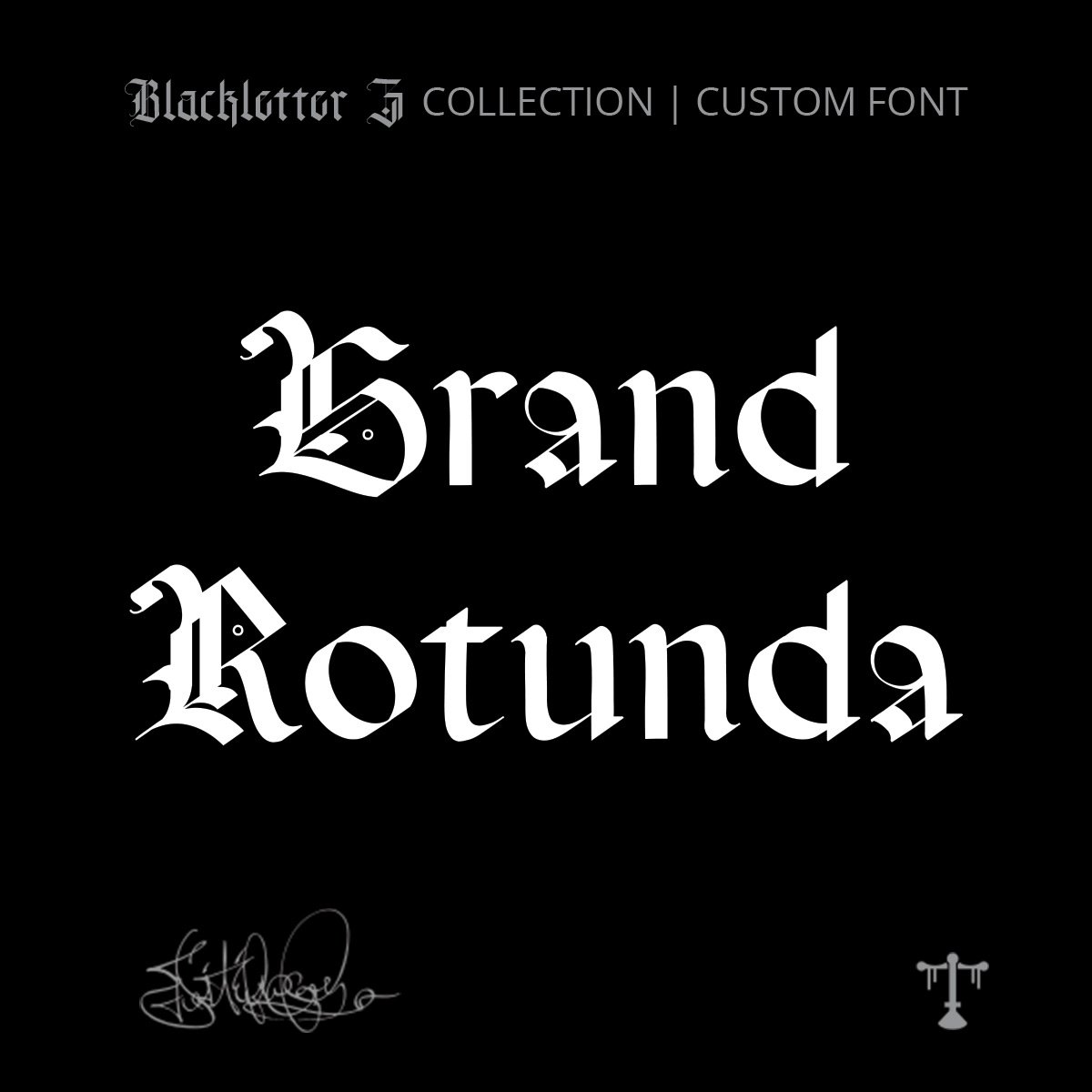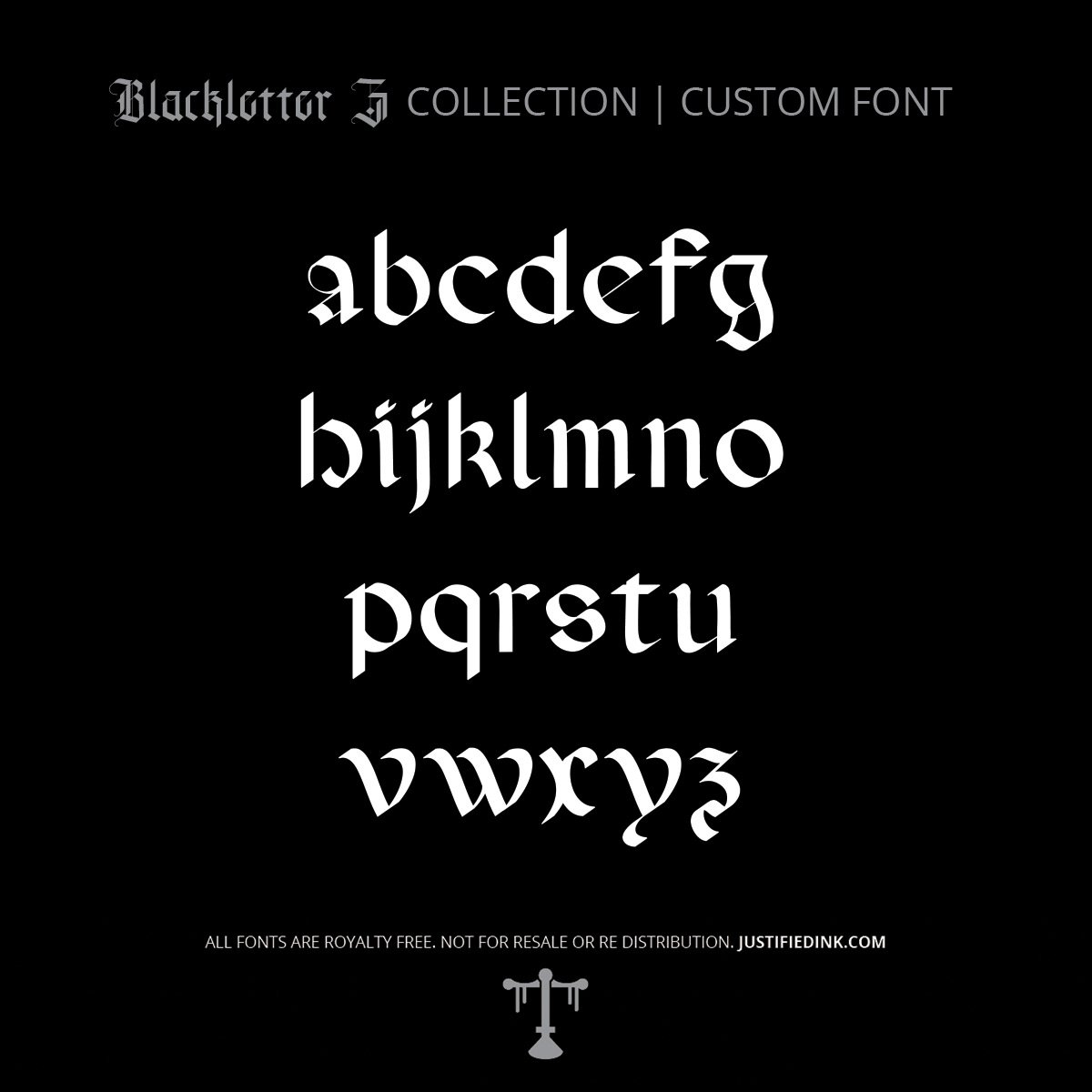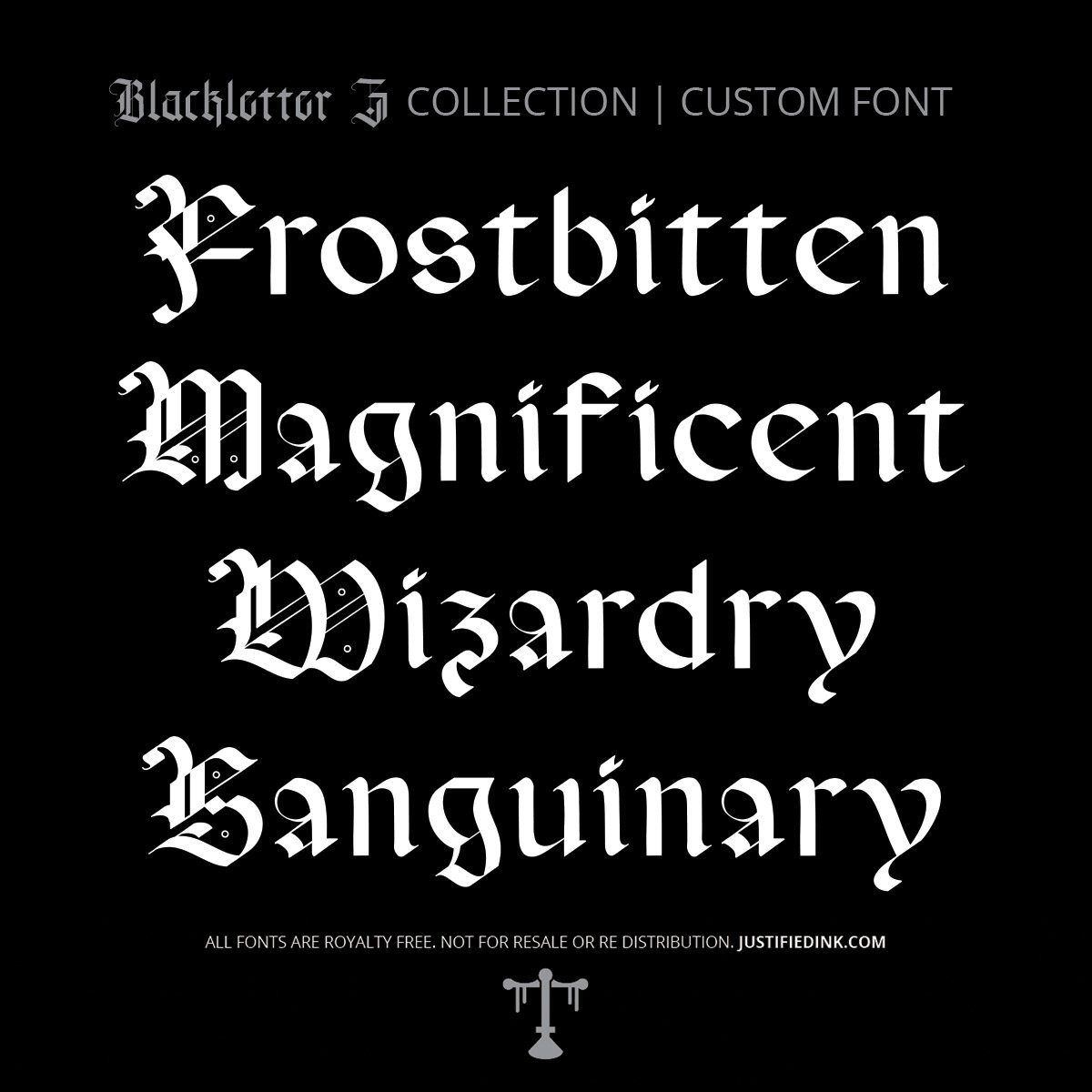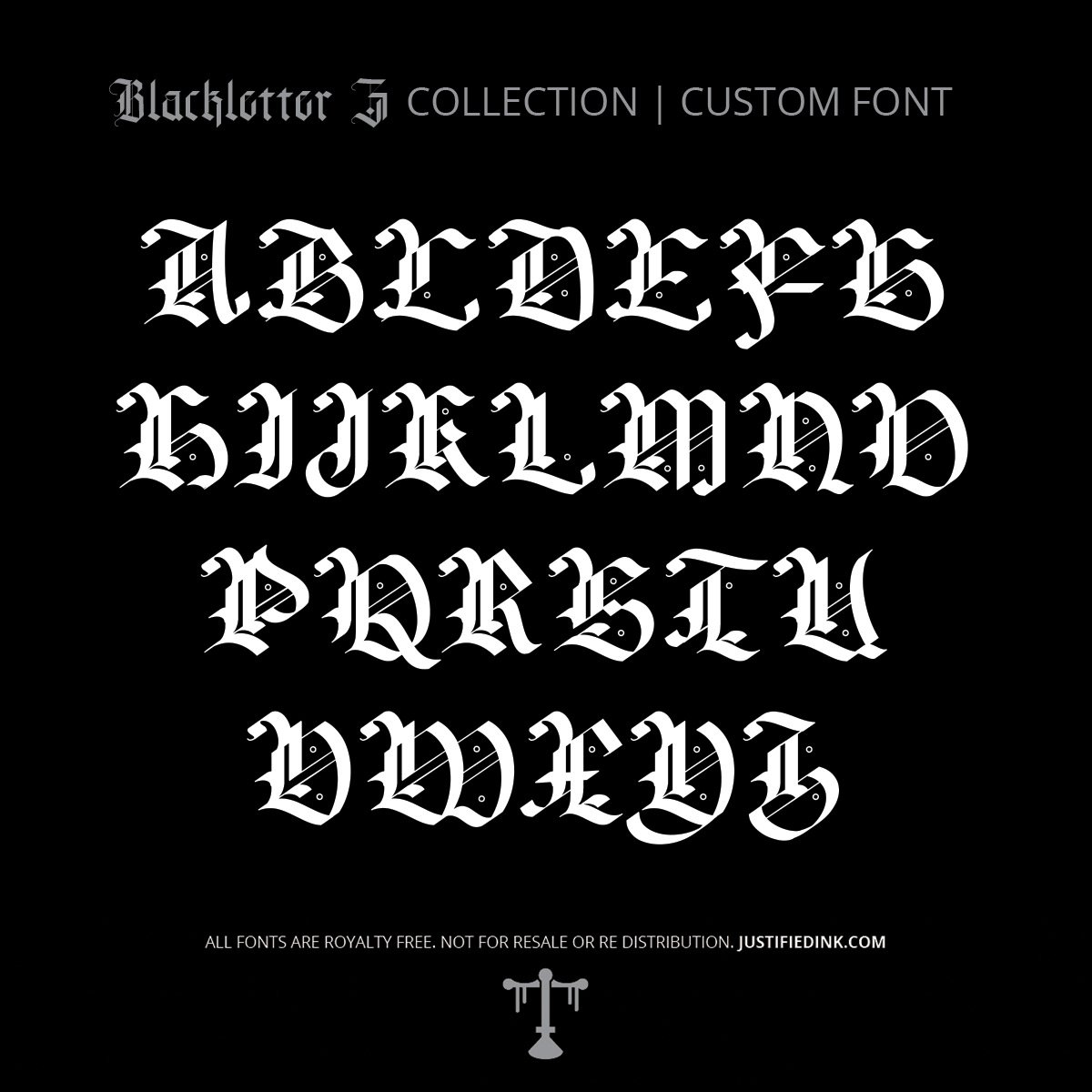
Grand Rotunda (1 style) - Custom Font
Rounded Grace, Gothic Power
Grand Rotunda revives the elegant, rounded forms of southern European rotunda script. A softer take on gothic lettering, its wide bowls and curved strokes balance beauty with legibility. This gothic font suits everything from tattoo designs to branding and invitations where refinement meets darkness.
NAME: Grand Rotunda